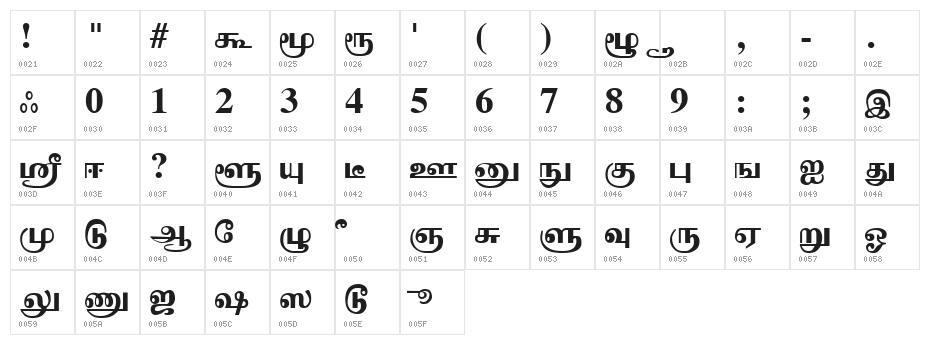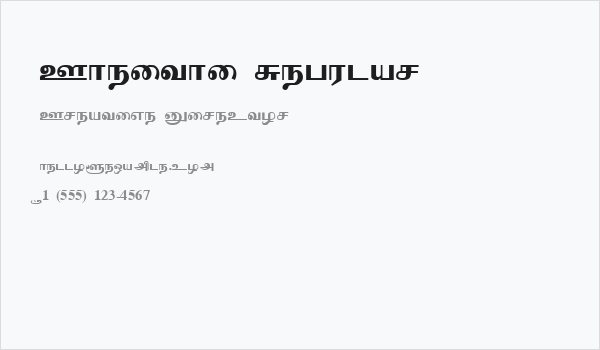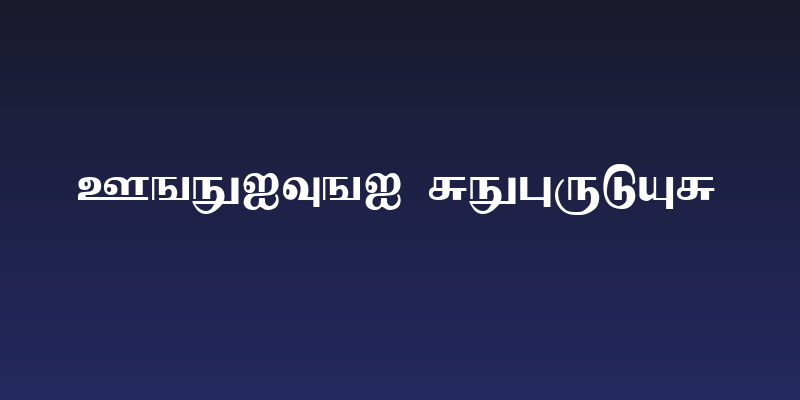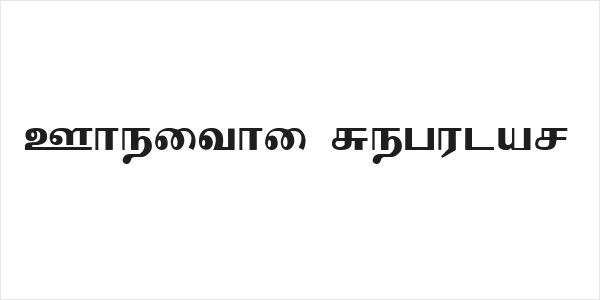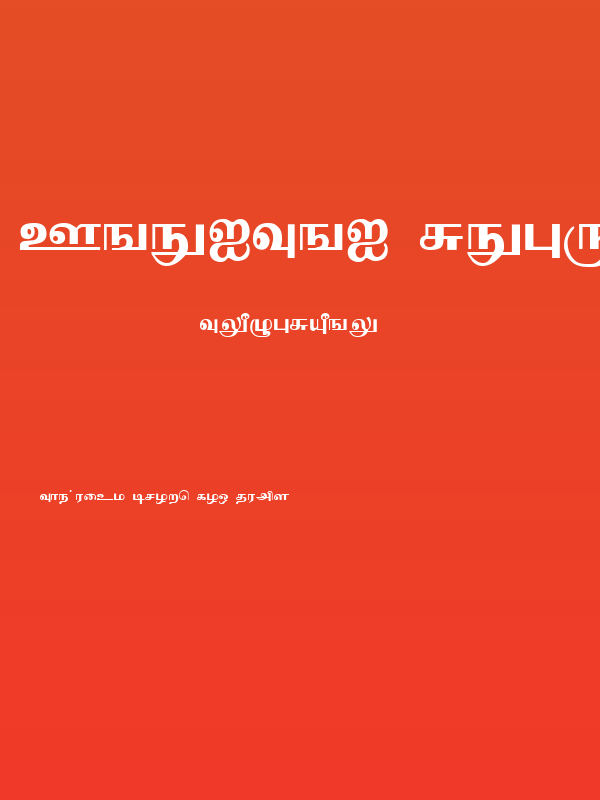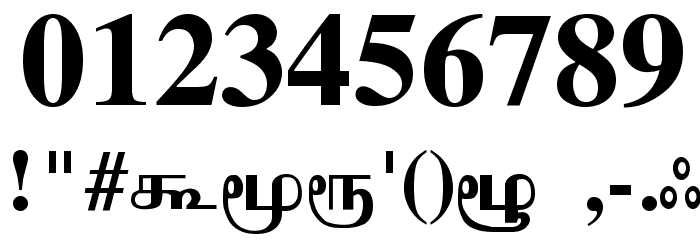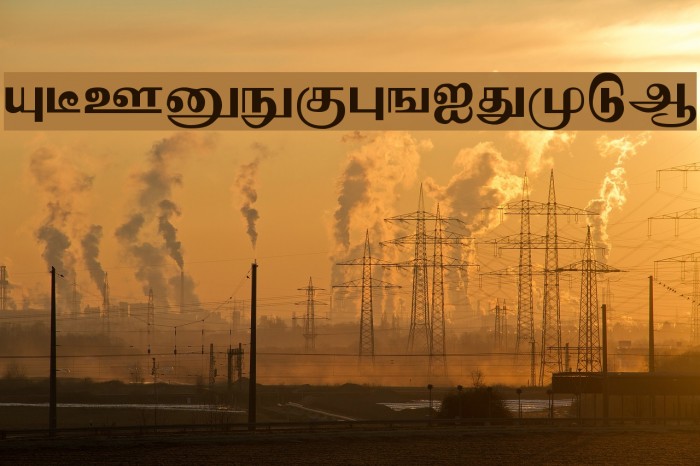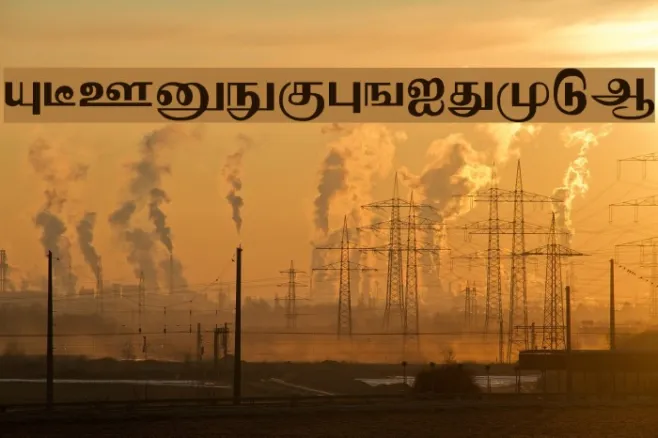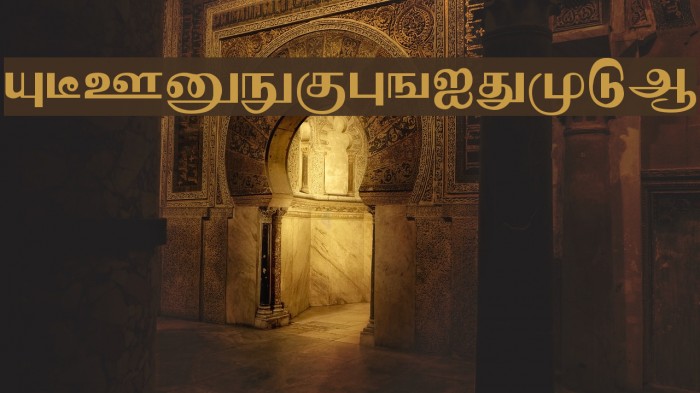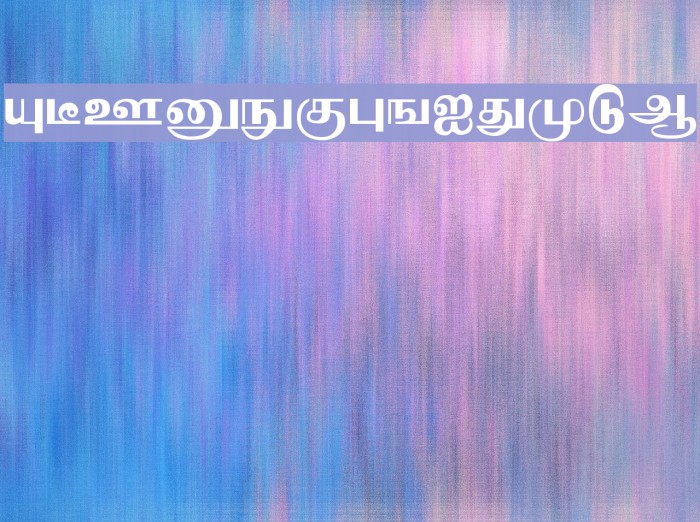
Cheithi Regular Font
Cheithi Regular Description
This typeface features a classic and elegant design with a strong presence. The characters are well-defined with a moderate stroke contrast, giving it a sophisticated and timeless appearance. The numerals are bold and clear, making them highly legible. Special characters are distinct and integrate seamlessly with the overall style. The font is versatile, suitable for both digital and print media, and can be used effectively in various design contexts.
| Overall Style | Classic |
| Use Case | Headlines, Body text, Logos |
| Proposed Projects | Ideal for branding, editorial design, book covers, and formal invitations. |